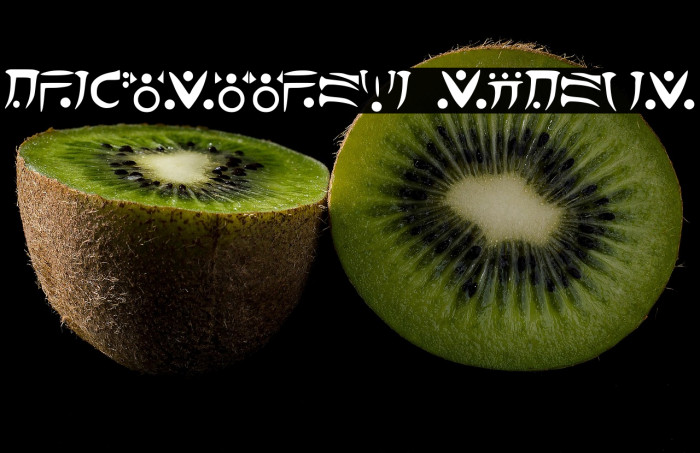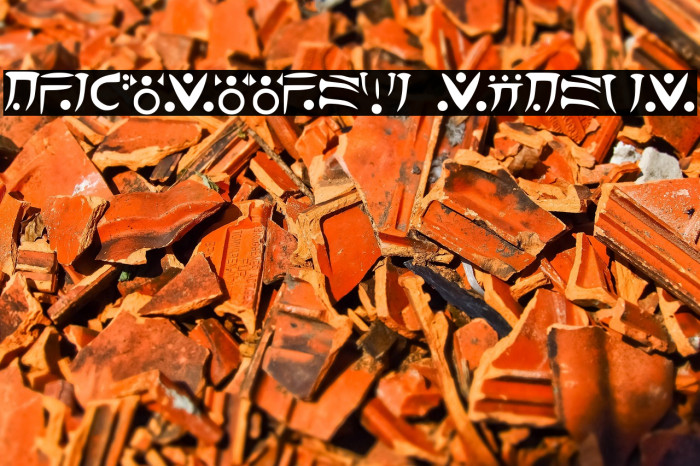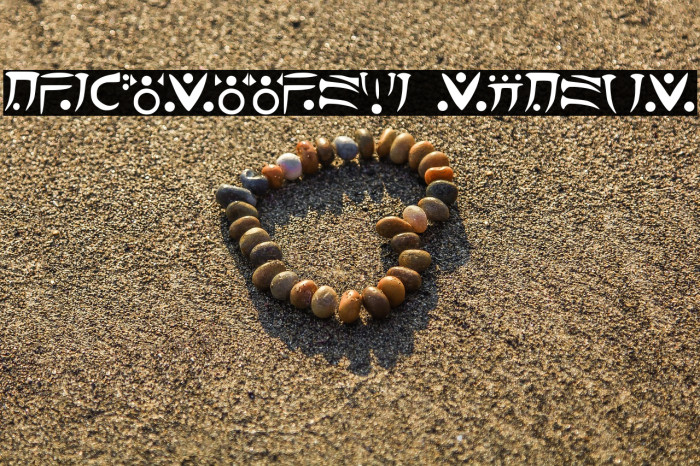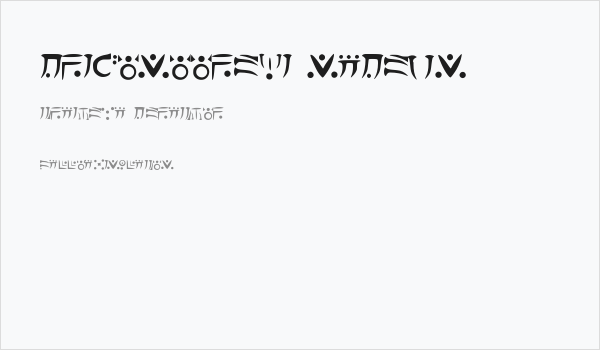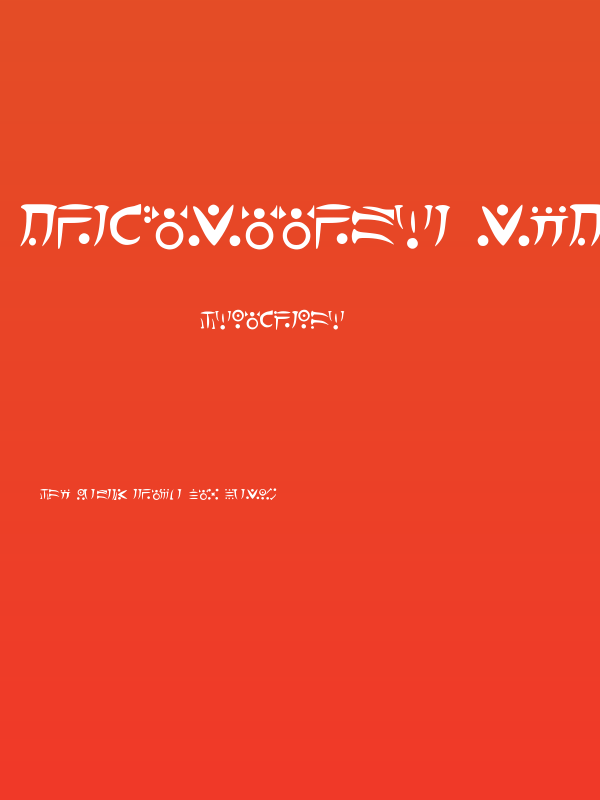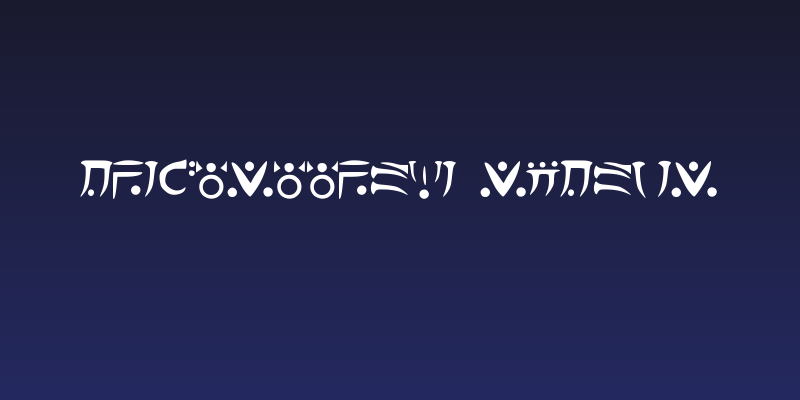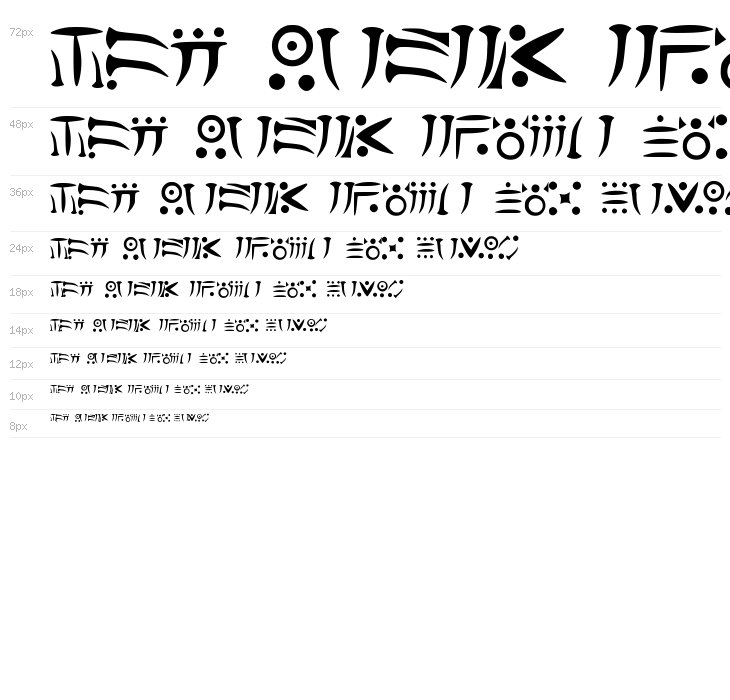
Dragomooriya Medium Font
Dragomooriya Medium Description
This design features a highly decorative and abstract style, reminiscent of ancient scripts or symbolic languages. The characters are composed of bold strokes, dots, and unique shapes, creating a mysterious and enigmatic appearance. The overall aesthetic is both artistic and unconventional, making it stand out as a display typeface. The intricate details and complex forms suggest a theme of fantasy or historical fiction, ideal for projects that require a touch of the exotic or otherworldly.
| Use Case | Logos, Posters, Titles |
| Proposed Projects | Ideal for fantasy book covers, game design, movie posters, or any project requiring an exotic and mysterious theme. |